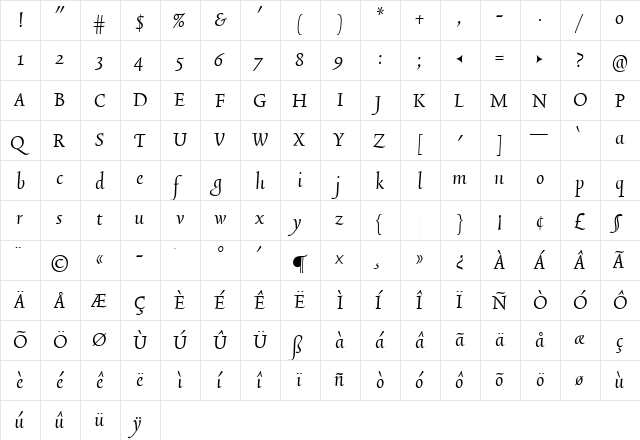
TriniteNo3 Italic
Design Context for TriniteNo3 Typeface
TriniteNo3 takes a measured approach to typography — its balanced proportions and neutral character make it a reliable workhorse for both digital and print work. Its italic angle brings a sense of urgency and motion to the letterforms.